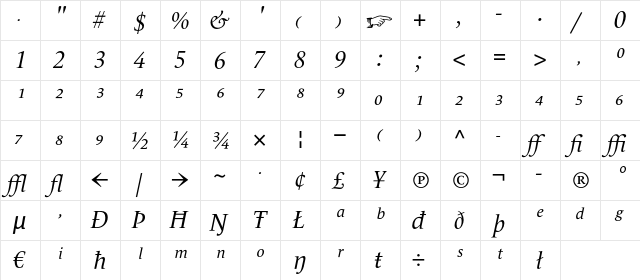
LeMonde Livre Expert Italic
Design Context for LeMonde Livre Expert Typeface
LeMonde Livre Expert offers clean, dependable letterforms without strong stylistic allegiance, making it a practical choice for designers who need flexibility. Its italic angle brings a sense of urgency and motion to the letterforms.
Pro Tip: Use LeMonde Livre Expert for emphasis, pull quotes, and subheadings where its slanted energy can add rhythm to the layout.